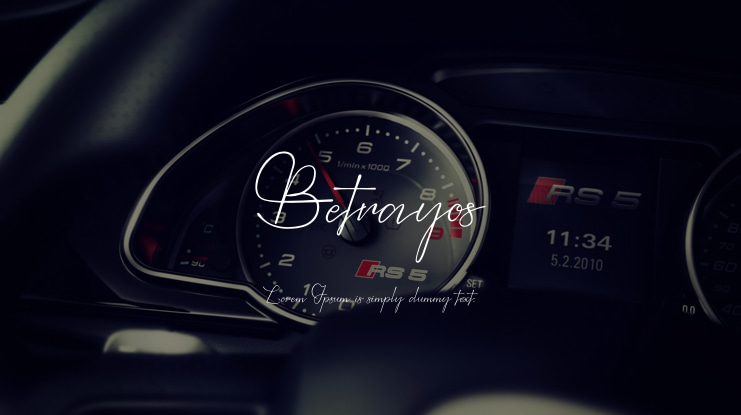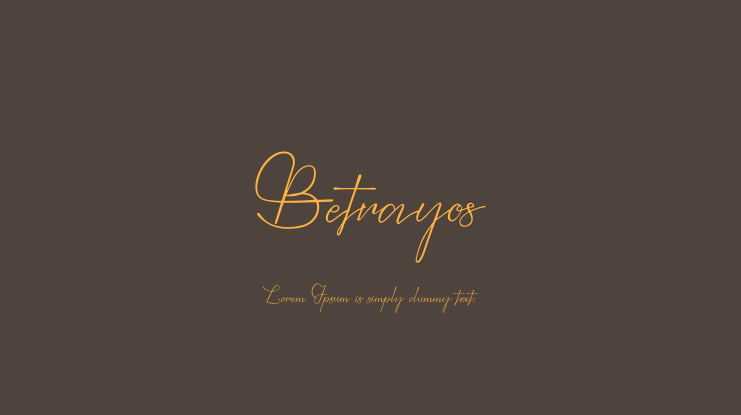
Betrayos Font
Betrayos | Signature Font is suitable for various projects such as logos, branding, homeware designs, product packaging, mugs, quotes, posters, shopping bags, t-shirts, book covers, name cards, invitation cards, greeting cards, labels, photography, watermarks, special events, and all other projects requiring a signature script aesthetic.